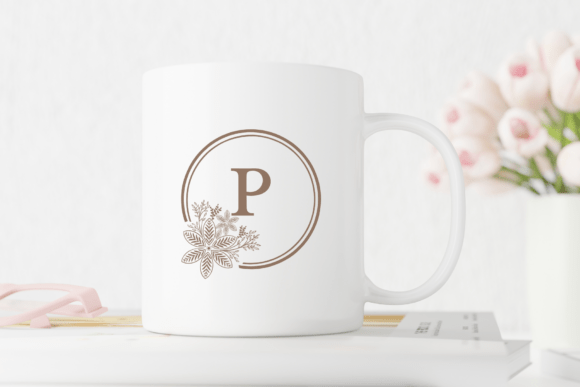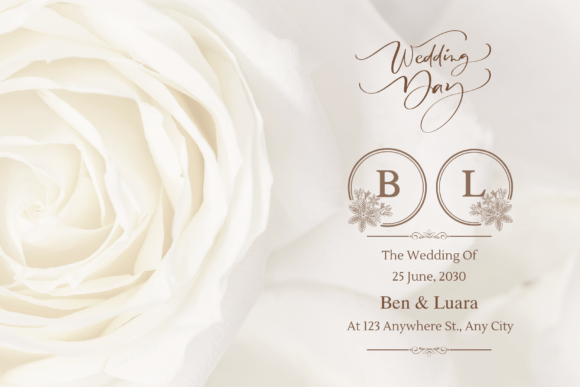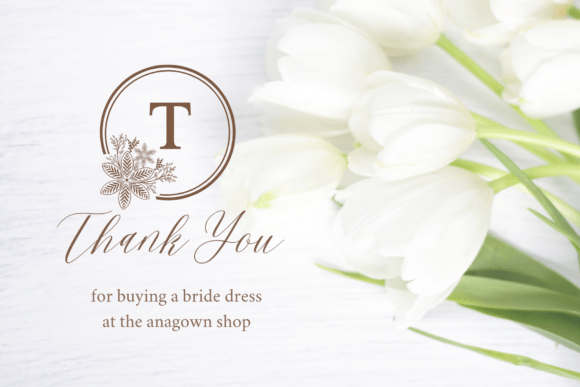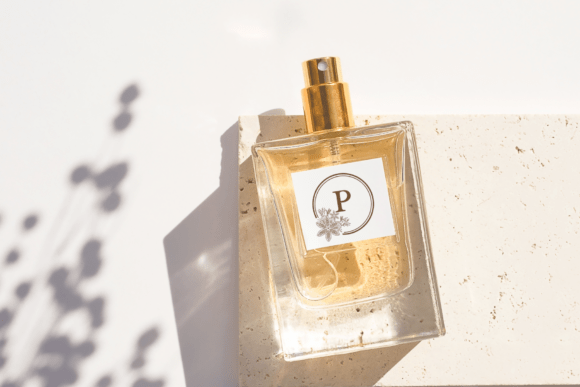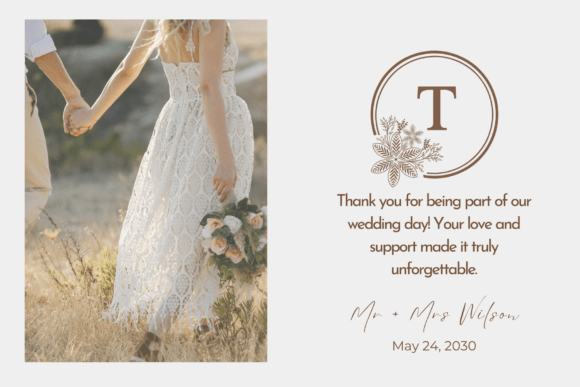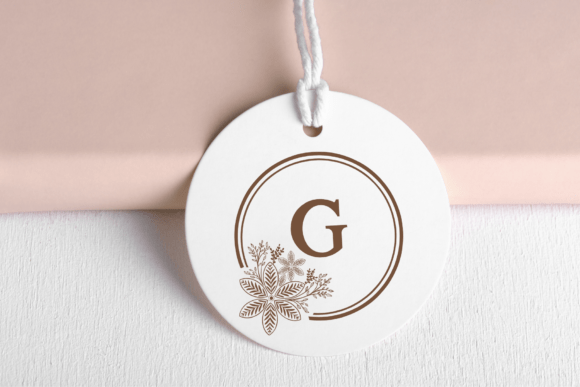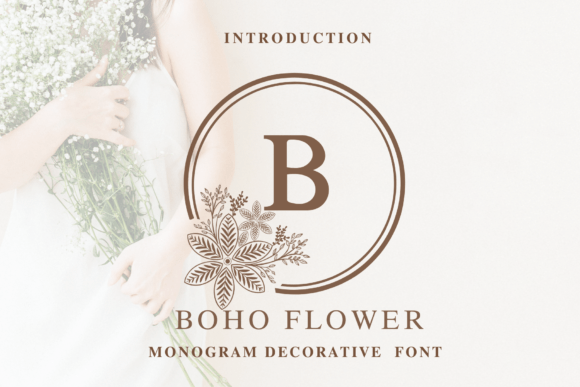
Introducing Boho Flower Monogram Font: Elevate Your Designs with Bohemian Elegance
Are you a designer, crafter, or DIY enthusiast looking for a unique and captivating font to add a touch of natural beauty to your projects? Look no further than Boho Flower, a stunning monogram decorative font that embodies the essence of bohemian elegance. Inspired by the delicate and intricate patterns found in nature, Boho Flower is the perfect addition to your design toolkit.
The Beauty of Boho Flower
Boho Flower is a meticulously crafted font that features delicate floral elements and a graceful design. Each letter is carefully adorned with intricate flower and leaf motifs, creating a soft, artistic, and organic look that is sure to captivate your audience. The font’s bohemian style is perfect for those who appreciate the free-spirited and eclectic vibe of the bohemian lifestyle.
Perfect for Wedding Invitations and More
Boho Flower is an ideal choice for wedding invitations, logos, branding, crafts, and home decor projects. The font’s romantic and whimsical feel makes it perfect for:
- Logos and branding for botanical, floral, and lifestyle businesses
- Crafts, such as scrapbooking and card making
- Home decor projects, like wall art and signage
Add a Soft, Artistic, and Organic Touch
Boho Flower allows you to add a soft, artistic, and organic touch to your creations. The font’s delicate floral elements and gentle curves evoke a sense of whimsy and romance, making it perfect for projects that require a personal and unique touch. With Boho Flower, you can:
- Create beautiful wedding invitations that set the tone for a romantic and unforgettable celebration
- Develop a strong brand identity that reflects your business’s values and aesthetic
- Add a touch of elegance and sophistication to your crafts and home decor projects
Key Features of Boho Flower
Here are some of the key features that make Boho Flower a standout font:
- Delicate floral elements and intricate patterns
- Graceful design with soft, curved lines
- Bohemian style with a natural, organic feel
- Perfect for wedding invitations, logos, branding, crafts, and home decor projects
Get Creative with Boho Flower
Whether you’re a professional designer or a DIY enthusiast, Boho Flower is the perfect font to help you bring your creative vision to life. With its unique blend of bohemian elegance and natural beauty, Boho Flower is sure to inspire you to create something truly special.
In conclusion, Boho Flower is a stunning monogram decorative font that is perfect for designers, crafters, and DIY enthusiasts looking to add a touch of bohemian elegance to their projects. With its delicate floral elements, graceful design, and natural beauty, Boho Flower is sure to captivate your audience and inspire your creativity. So why wait? Download Boho Flower today and start creating something truly special.